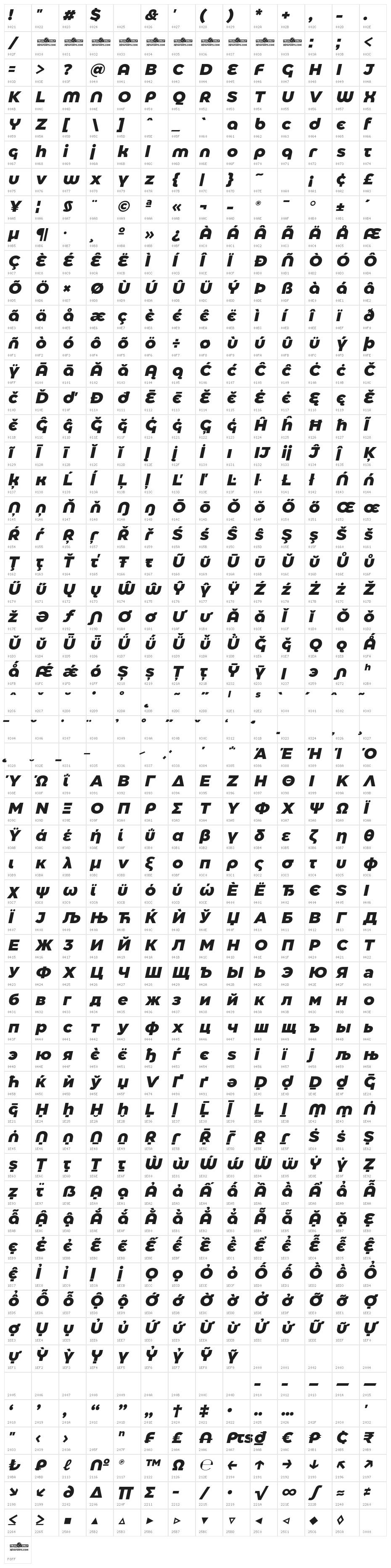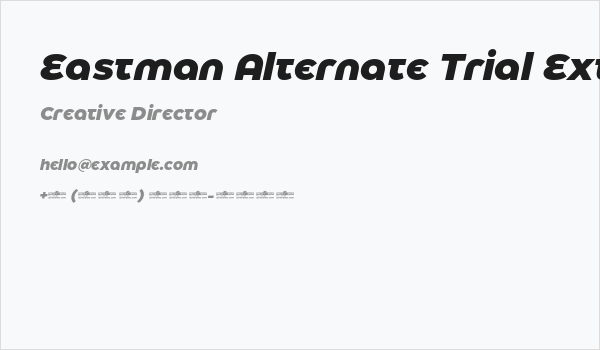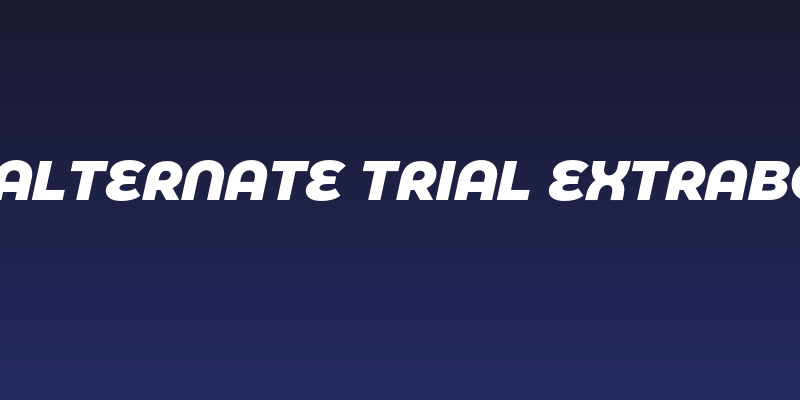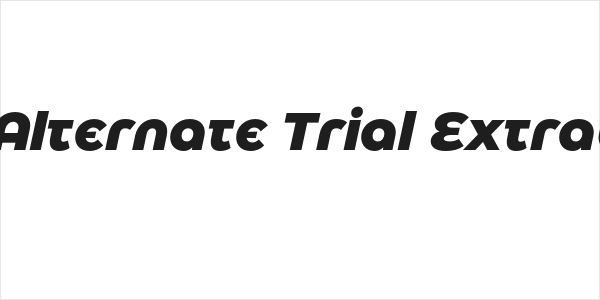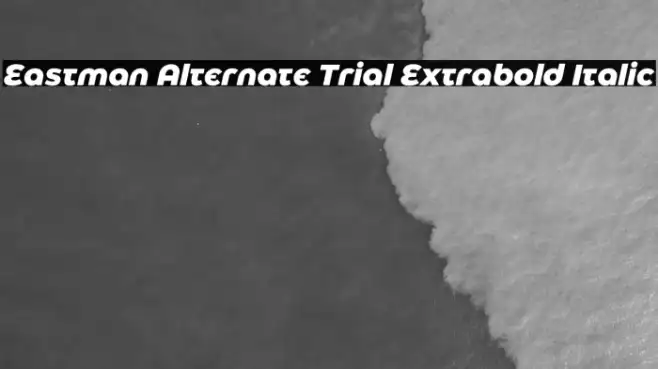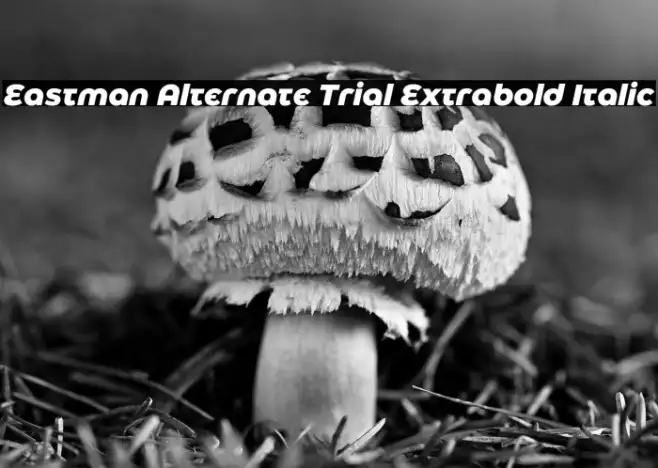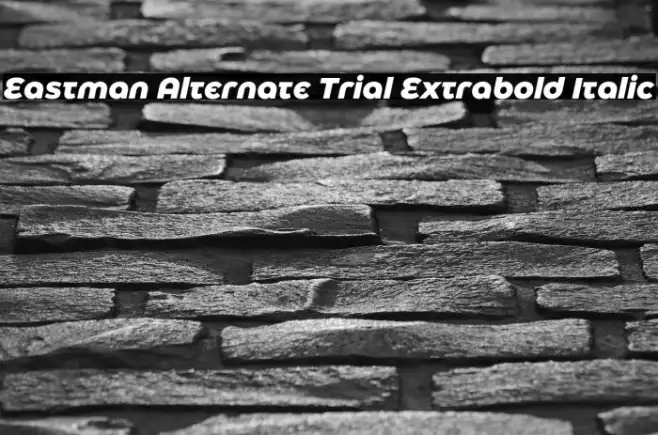
Eastman Alternate Trial Extrabold Italic Font
Eastman Alternate Trial Extrabold Italic Description
This font features a bold and dynamic style with a strong presence. The letters are extra bold and italicized, giving them a forward-leaning, energetic appearance. The strokes are thick and consistent, providing a sense of stability and impact. The characters have a modern and sleek design, with smooth curves and sharp edges that enhance readability. The font includes both uppercase and lowercase letters, numbers, and a variety of special characters. Its design is versatile, making it suitable for various creative projects.